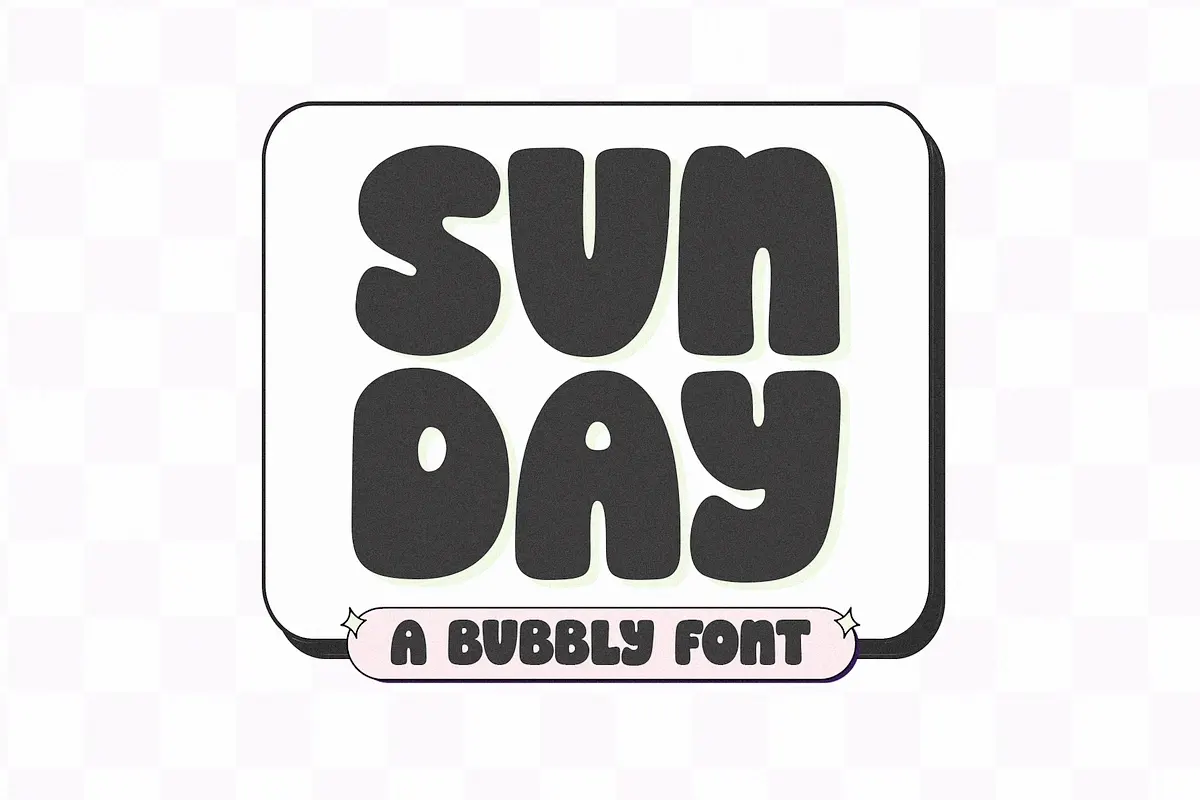
Sunday | Bubbly Font Free Download
Sunday | Bubbly Font Free Download is a charming and playful typeface perfect for adding a cheerful touch to your designs. Its rounded, bubbly letters make it ideal for invitations, social media graphics, branding, packaging, and anything that needs a fun, friendly vibe. Whether you're a designer looking to add a whimsical flair or a crafter working on a DIY project, Sunday | Bubbly delivers personality and style.
This font is easy to use and pairs beautifully with both script and sans-serif typefaces, giving you creative flexibility. It stands out in both digital and print formats, making it a versatile choice for creatives of all kinds.